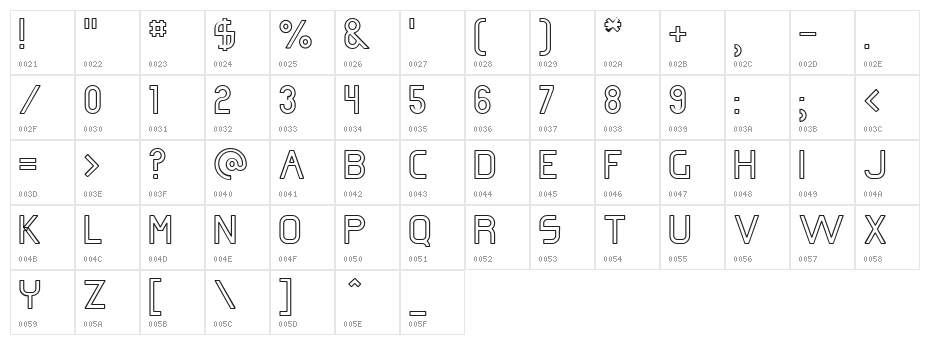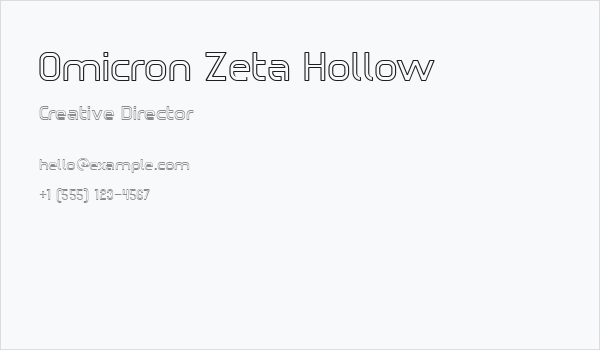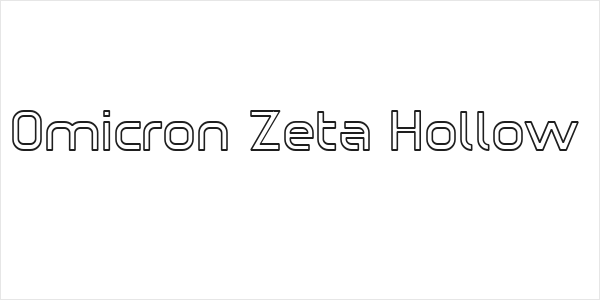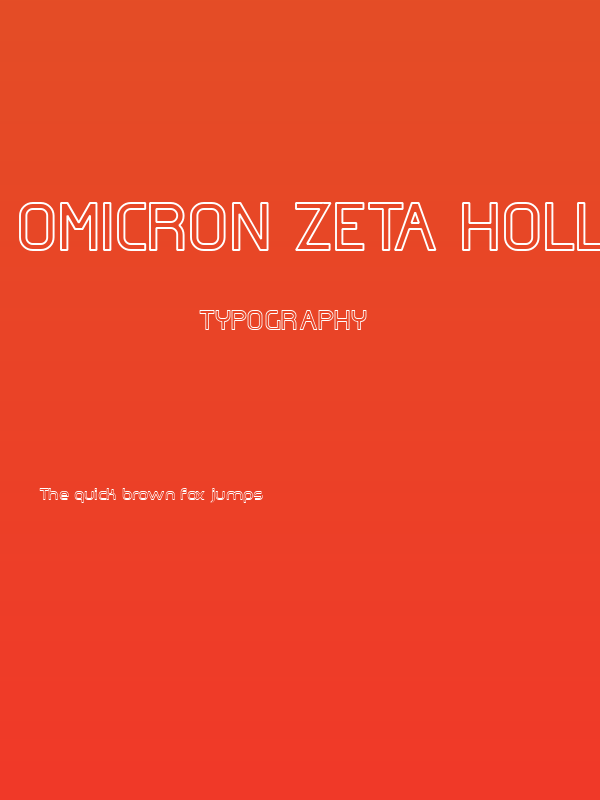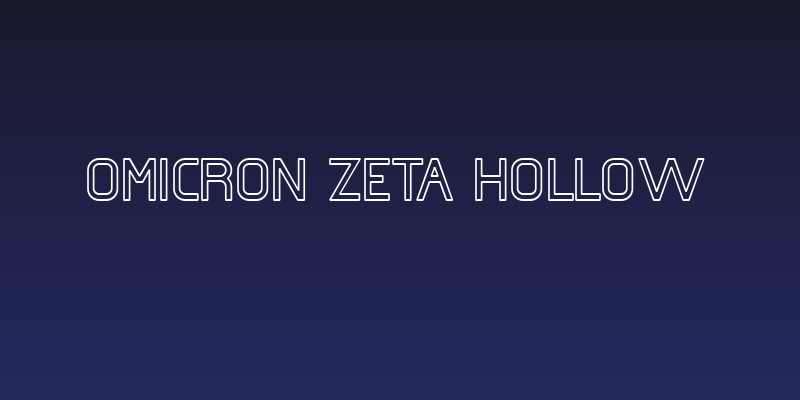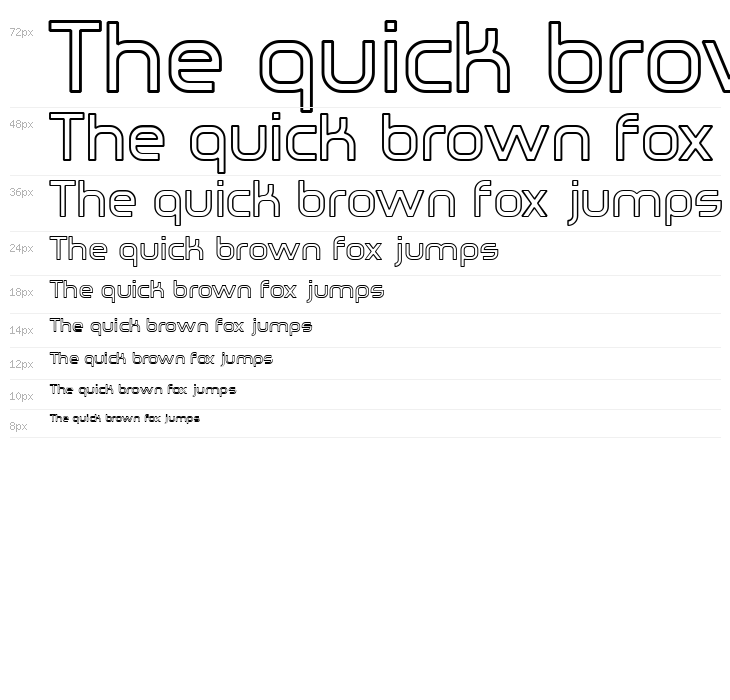
Omicron Zeta Hollow Font
Omicron Zeta Hollow Description
This font features a modern, geometric design with hollow characters that create a unique and striking visual effect. The uppercase and lowercase letters maintain a consistent line width, contributing to a clean and structured appearance. The numerals and special characters are designed with the same hollow style, ensuring uniformity across all glyphs. The font's open and airy design makes it ideal for projects that require a contemporary and eye-catching look. Its geometric shapes and precise lines give it a futuristic feel, while the hollow aspect adds a touch of elegance and sophistication.
| Proposed Projects | Ideal for branding, posters, headlines, and digital media where a modern and distinctive look is desired. |